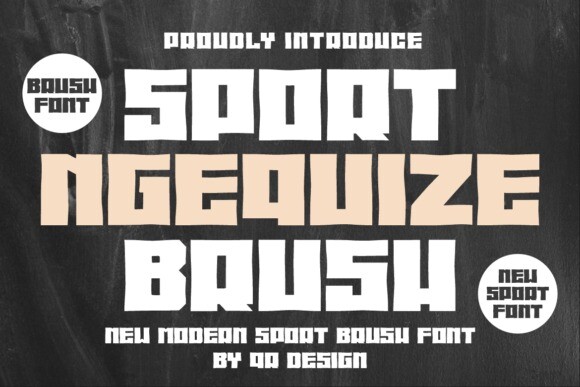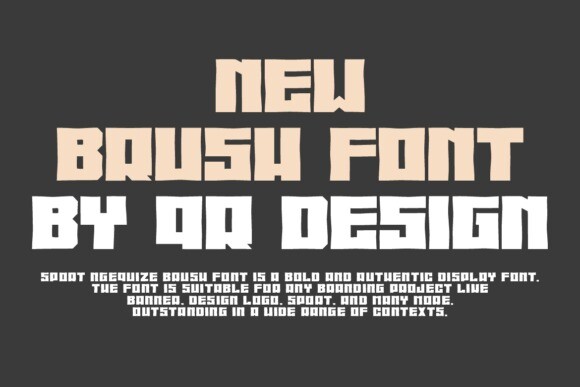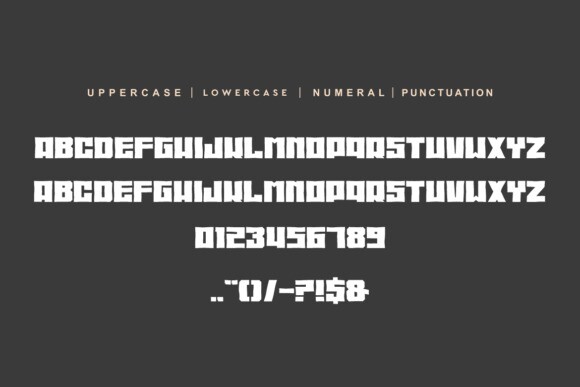
Sport Ngequize Brush Font
Sport Ngequize Brush Font is a bold and authentic display font.
The font is suitable for any branding project like logo, t-shirt printing, food, and many more.